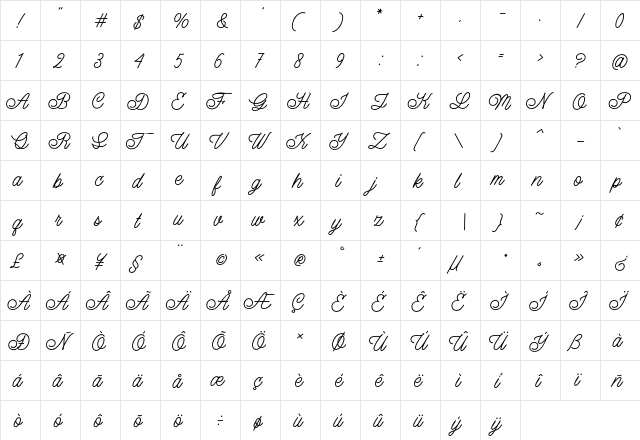
Lazy Ride Personal Use Regular
| Foundry | Hendra Pratama |
| Designer | Hendra Pratama |
Design Context for Lazy Ride Personal Use Typeface
Lazy Ride Personal Use is a composed and adaptable typeface that performs quietly and consistently across a wide range of design contexts.